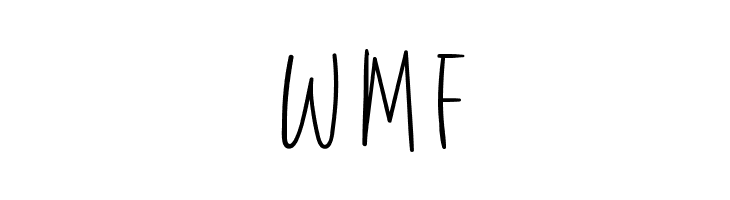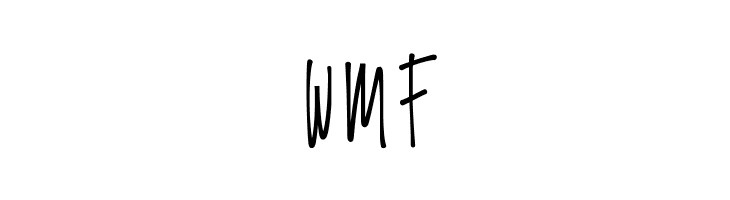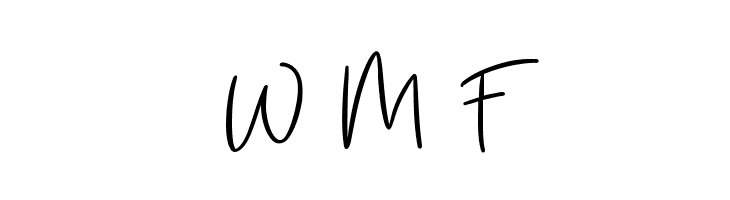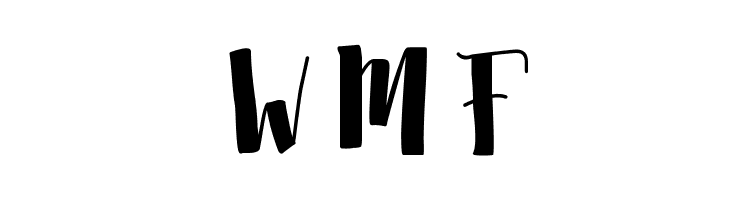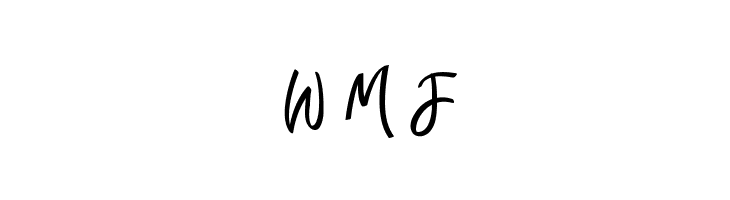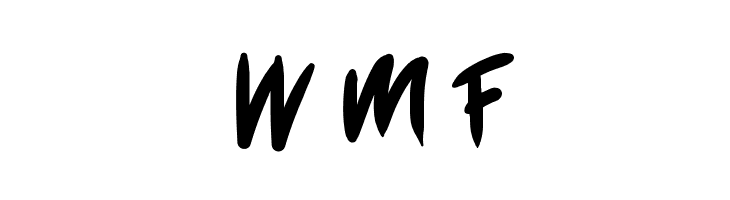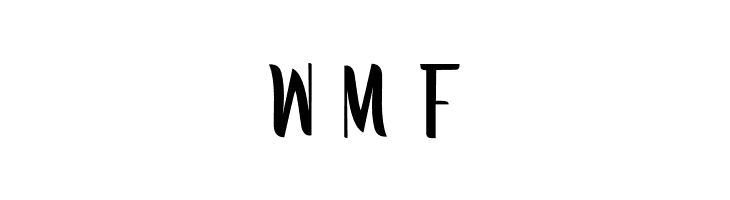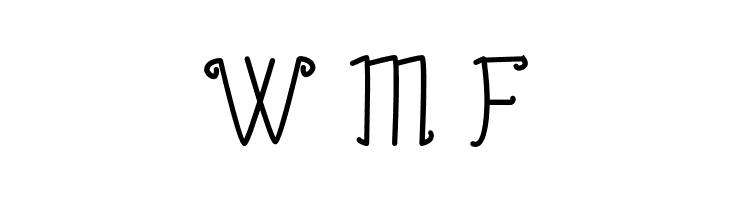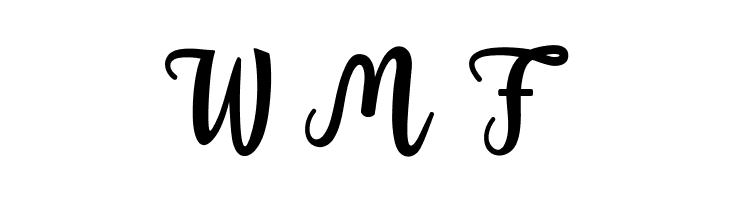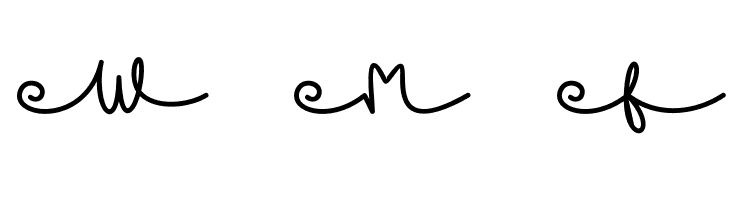
A modern, geometric font with a neon outline style.
A bold, energetic brush-style font with dynamic strokes.
A bold, modern font with elongated, narrow characters and a futuristic aesthetic.
A lively, handwritten font with tall, narrow letterforms and playful strokes.
A bold, geometric font with sharp angles and a modern, industrial feel.
A bold, distressed font with a vintage, handcrafted appearance.
A dynamic and fluid handwritten font with interconnected letterforms.
A bold, expressive handwritten font with playful loops and curves.
A lively and expressive handwritten font with dynamic strokes.
A playful, handwritten font with tall, narrow characters and a lively style.
A playful, handwritten font with a casual and whimsical style.
A bold, brush-style font with a dynamic and hand-drawn appearance.
A modern, rounded sans-serif font with a clean and approachable design.
A playful, handwritten-style font with bold, dynamic characters.
A bold, italic serif font with a classic and elegant style.
A bold, classic serif font with strong, elegant strokes.
A classic italic typeface with smooth curves and a refined, elegant appearance.
A classic serif font with elegant curves and refined details.
A whimsical, decorative serif font with playful curls and loops.
A fluid and elegant handwritten font with dynamic, flowing letterforms.
An elegant cursive font with ornate uppercase and smooth lowercase letters.
A bold, expressive handwritten font with dynamic and flowing letterforms.
An elegant script font with flowing, cursive letterforms and decorative flourishes.
A bold, elegant serif font with a classic and sophisticated style.
A geometric, monospaced font with a modern, digital look.
An elegant, decorative font with artistic curls and swirls.
An elegant script font with flowing, interconnected letters and elaborate swashes.
( PutraCetol Studio - Putra Novembria Candra Kusuma - creativemarket.com/putracetol )
A playful and elegant script font with flowing cursive design and whimsical flair.
( PutraCetol Studio - Putra Novembria Candra Kusuma - creativemarket.com/putracetol )
A flowing, elegant cursive font with graceful loops and smooth connections.
( PutraCetol Studio - Putra Novembria Candra Kusuma - creativemarket.com/putracetol )
A playful, whimsical script font with smooth, flowing lines and a handwritten feel.
( PutraCetol Studio - Putra Novembria Candra Kusuma - creativemarket.com/putracetol )
A tall, narrow font with clean, elongated letterforms and a minimalistic style.
A tall, narrow font with a rough, vintage texture and a handcrafted feel.
A bold, textured font with a tribal, hand-carved aesthetic.
A bold, geometric font with a futuristic and modern style.